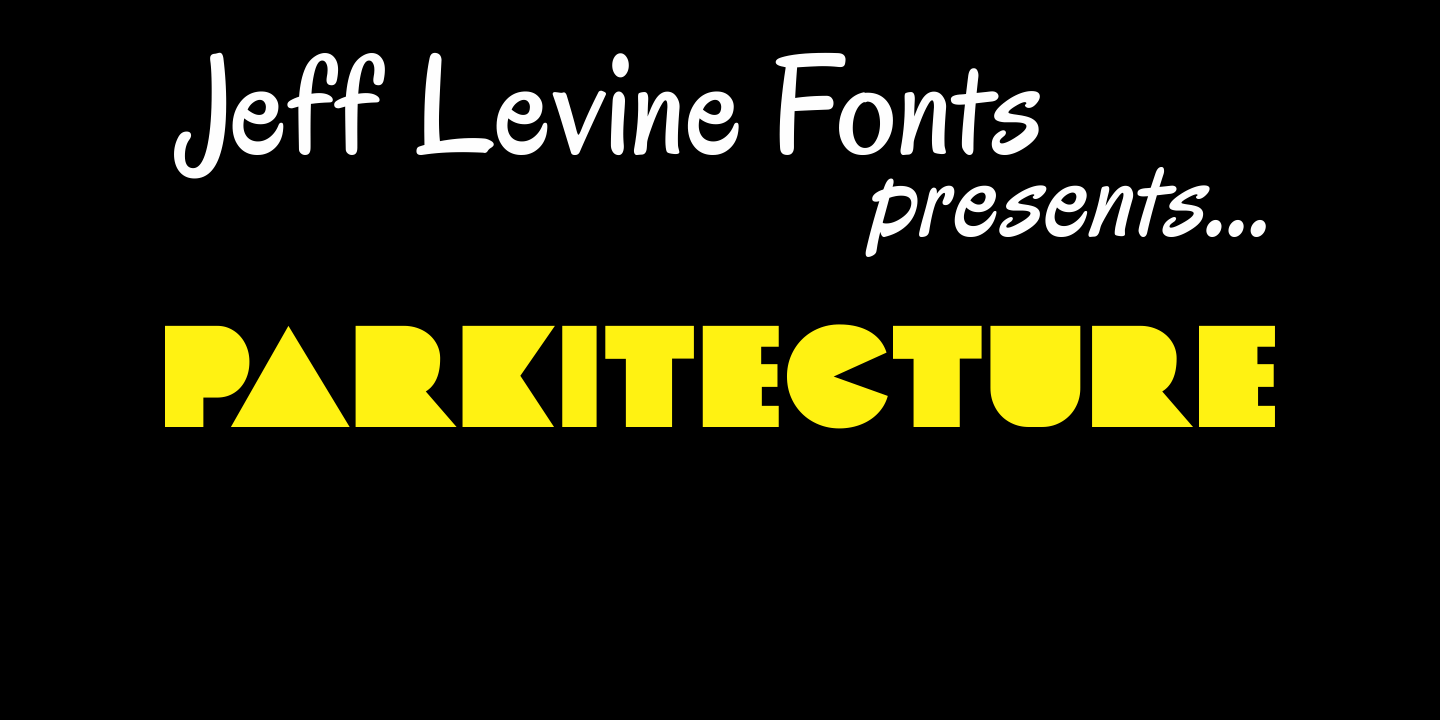
Parkitecture
Parkitecture JNL is the latest font to embrace the angles and lines of the Art Deco era. Bold and solid in look and feel, it gives nostalic headlines a solid retro appearance.